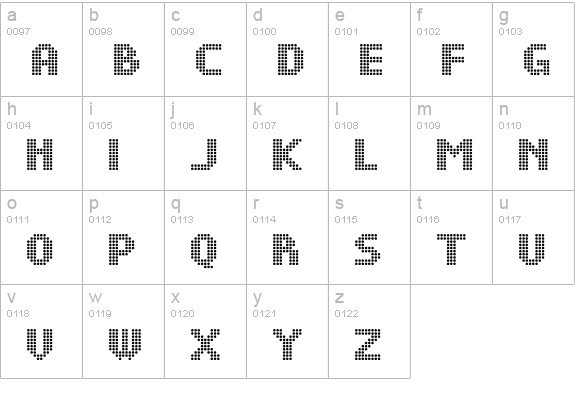
Pointille ICG Font Details
Pointille ICG is a unique and modern font that combines elements of elegance and sophistication with a touch of playfulness. This font features intricate dot patterns that create a visually captivating effect, making it perfect for a wide range of design projects. Whether you're working on a poster, branding materials, or digital artwork, Pointille ICG is sure to make a statement. What sets Pointille ICG apart is its versatility - it can be used for both headers and body text, giving you the flexibility to create cohesive and eye-catching designs. The clean lines and balanced spacing of this font ensure readability while still adding a creative flair to your work. Best of all, Pointille ICG is available for free download at FontsMarket.com. This means you can easily access this stunning font and incorporate it into your projects without any cost. Don't miss out on the opportunity to elevate your designs with Pointille ICG's unique style and charm. Download it now and let your creativity shine!